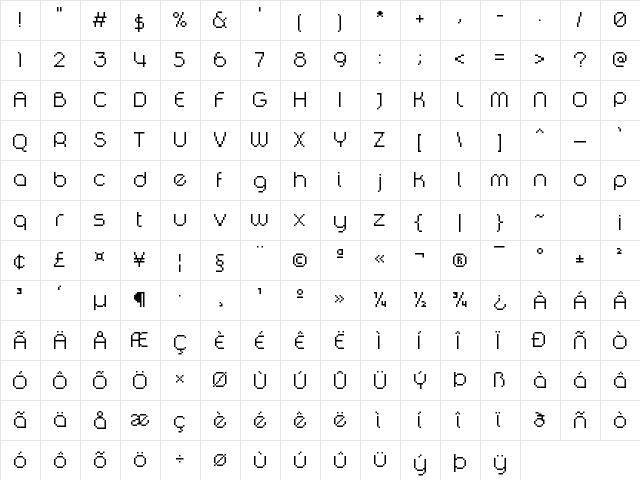
DigitalDisco Thin
Design Context for DigitalDisco Typeface
DigitalDisco channels digital-age aesthetics through its sharp, structured letterforms — ideal for brands that want to signal innovation. Its slender proportions lend an understated elegance to any composition.
Pro Tip: Try DigitalDisco with generous letter-spacing in UI labels and navigation — the geometric forms benefit from room to breathe.